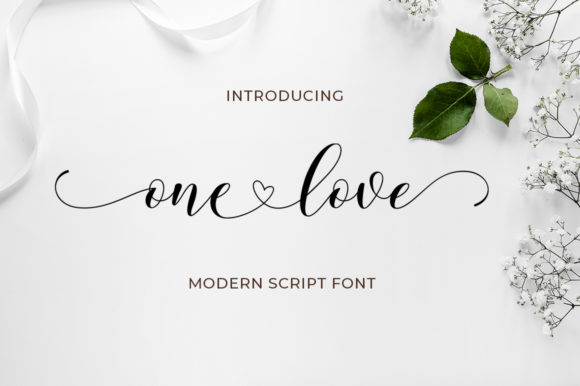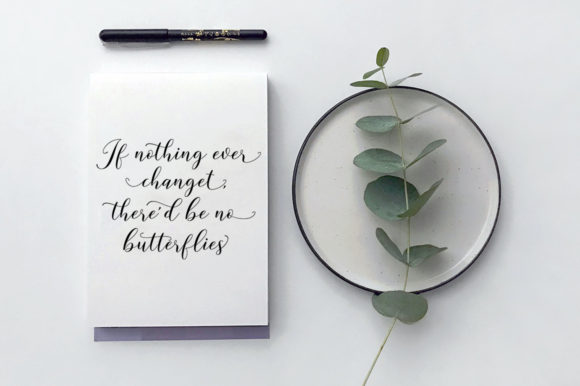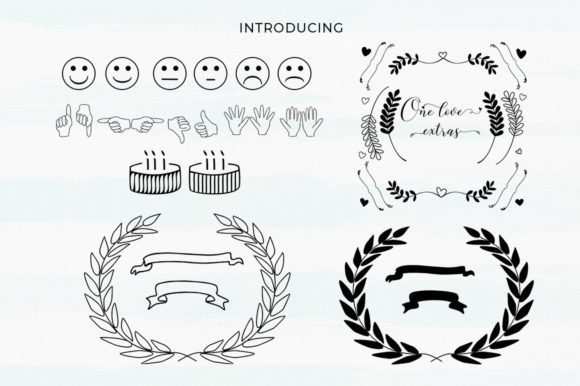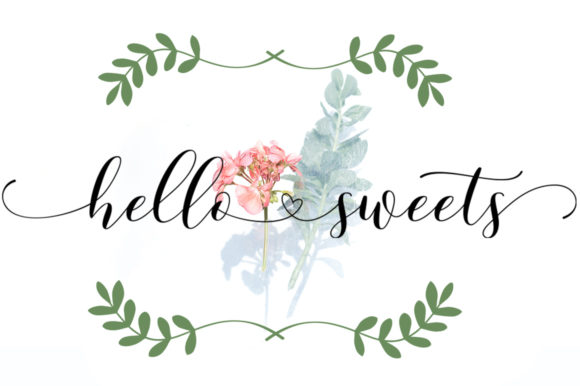
One Love Font
About the One Love Font
Add a touch of class to your work with the One Love Font, a truly exceptional typeface. One Love is a cute and casual handwritten font with an incredibly friendly feel. It features gorgeous swashes and ligatures that make this script incredibly versatile. It also features cute doodles. Whether you’re looking for fonts for Instagram or calligraphy scripts for DIY projects, One Love will turn any creative idea into a true piece of art!
One Love’s friendly, casual style makes it ideal for projects needing a warm, approachable feel. It excels in short text applications such as logos, social media graphics, invitations, and short headlines. The playful doodles add a unique touch, perfect for branding aimed at younger audiences or businesses with a lighthearted image. Avoid using it for large blocks of text or body copy; its informal nature and varying letter heights hinder readability in extended paragraphs.
Pairing One Love with a clean sans-serif like Montserrat or Open Sans provides a strong contrast, balancing its casual script style with modern readability. For a more playful feel, consider a geometric sans-serif such as Futura or a slightly bolder sans-serif such as Bebas Neue. If a more elegant pairing is desired, a subtle serif like Lora can add sophistication without overpowering the handwritten charm of One Love.
In short, One Love projects a youthful, optimistic energy. It’s best suited for brands and projects that prioritize approachability and a handcrafted aesthetic.
One Love Font Usage Examples
One Love Font Example